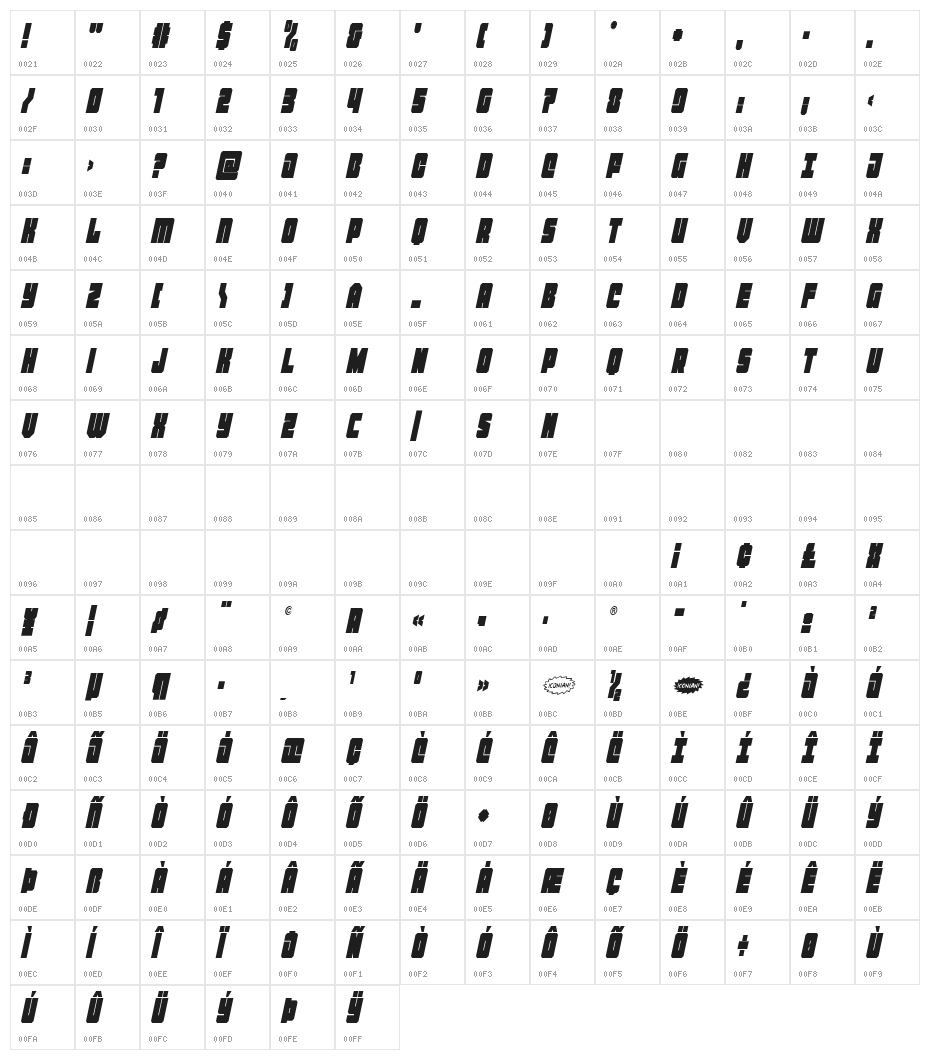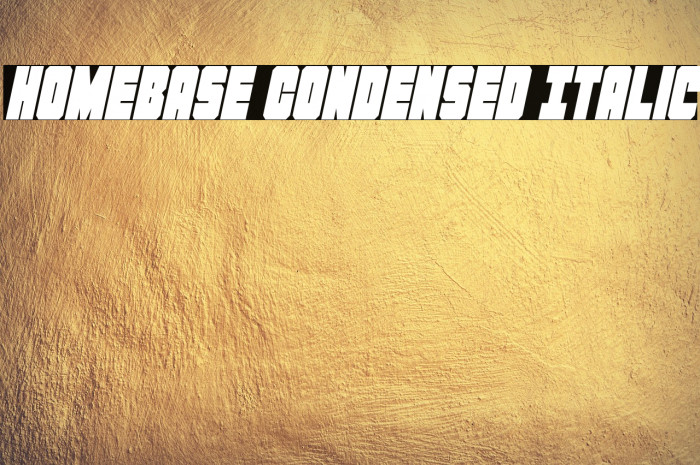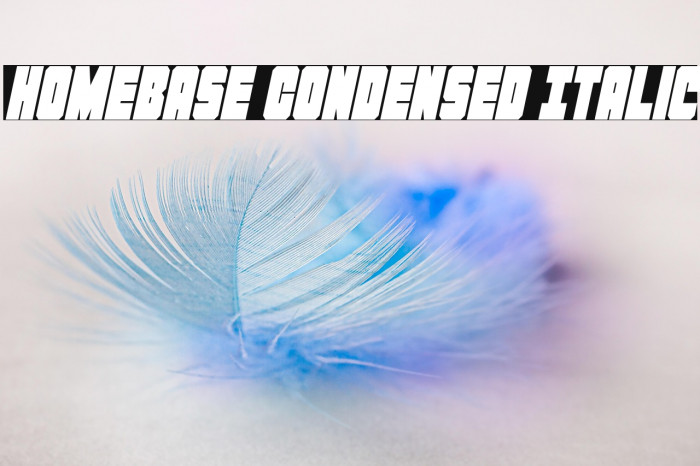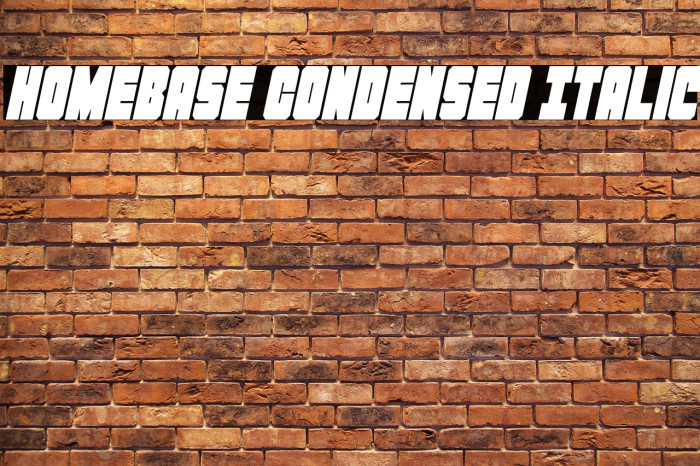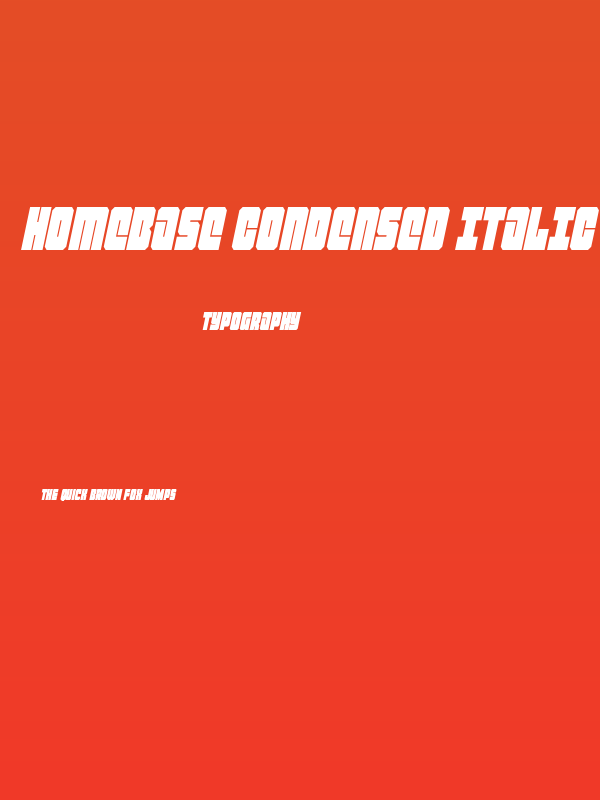
Homebase Condensed Italic Font
Homebase Condensed Italic Description
This font features a bold and dynamic design with a condensed and italicized style. The characters are angular and geometric, giving a sense of motion and energy. The uppercase and lowercase letters maintain a consistent width, enhancing the condensed appearance. The numbers and special characters follow the same bold and angular design, ensuring uniformity across all glyphs. The overall look is modern and impactful, suitable for making strong visual statements.
| Proposed Projects | Ideal for sports branding, dynamic posters, video game titles, and any project needing a strong, energetic typeface. |